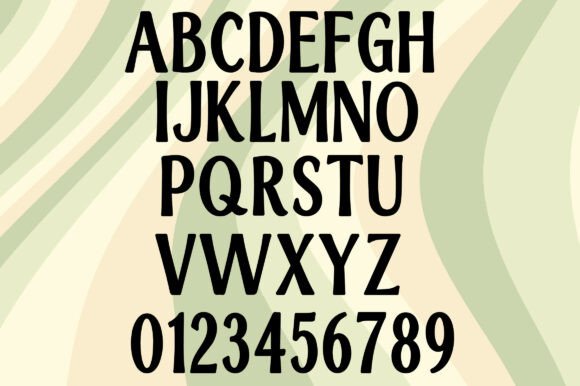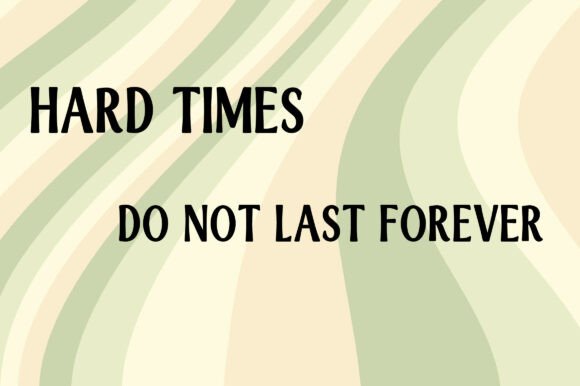
Discover Harmony Within Font: The Epitome of Serenity and Elegance
In the realm of typography, few fonts manage to evoke a sense of tranquility and refinement as effectively as Harmony Within Font. This beautiful typeface is characterized by its slender, elongated characters that seem to dance across the page with a gentle, soothing elegance. The subtle organic variation in stroke width gives Harmony Within a unique, hand-crafted feel that is at once both structured and natural.
The Inspiration Behind Harmony Within
The design of Harmony Within Font draws inspiration from the natural world, with its slender lines and subtle variations evoking the imagery of bamboo stalks swaying gently in the breeze. This connection to nature is a hallmark of the font’s aesthetic, imbuing it with a sense of serenity and calm. The organic feel of Harmony Within also recalls the beauty of hand-lettered manuscripts, which add a touch of warmth and humanity to any design.
Key Features of Harmony Within Font
- Slender, elongated characters: Giving Harmony Within its distinctive, elegant appearance.
- Subtle organic variation in stroke width: Adding a touch of warmth and humanity to the font.
- Clean, tranquil aesthetic: Perfect for designs that require a sense of calm and serenity.
The Vibe of Harmony Within
Harmony Within Font exudes a vibe that is distinctly Zen, evoking the peaceful, meditative atmosphere of a serene natural setting. The font’s steady, elegant lines convey a sense of stability and reliability, while its artisanal feel adds a touch of craftsmanship and attention to detail. This unique combination of qualities makes Harmony Within the perfect choice for designers seeking to create a sense of harmony and balance in their work.
Ideal Uses for Harmony Within Font
Given its peaceful, elegant aesthetic, Harmony Within Font is particularly well-suited to a range of design applications, including:
- Tea packaging: The font’s tranquil, natural vibe makes it a perfect fit for tea brands seeking to convey a sense of serenity and well-being.
- Meditation app interfaces: Harmony Within’s clean, elegant lines create a peaceful atmosphere that is ideal for meditation and mindfulness apps.
- Sustainable fashion labels: The font’s artisanal feel and connection to nature make it a great choice for sustainable fashion brands seeking to convey a sense of eco-friendliness and craftsmanship.
Tips for Using Harmony Within Font
To get the most out of Harmony Within Font, consider the following tips:
- Use it sparingly: Harmony Within’s elegant lines and subtle variations are best used sparingly, allowing the font to make a lasting impact.
- Pair it with complementary fonts: Harmony Within pairs beautifully with clean, sans-serif fonts that complement its elegant aesthetic.
- Experiment with color: The font’s tranquil vibe makes it a great choice for designs featuring a muted, natural color palette.
Harmony Within Font is a beautiful, elegant typeface that is sure to bring a sense of serenity and refinement to any design. With its slender lines, subtle organic variations, and clean aesthetic, this font is the perfect choice for designers seeking to create a sense of harmony and balance in their work. Whether you’re designing tea packaging, meditation app interfaces, or sustainable fashion labels, Harmony Within Font is the perfect choice for any project that requires a touch of elegance and tranquility.